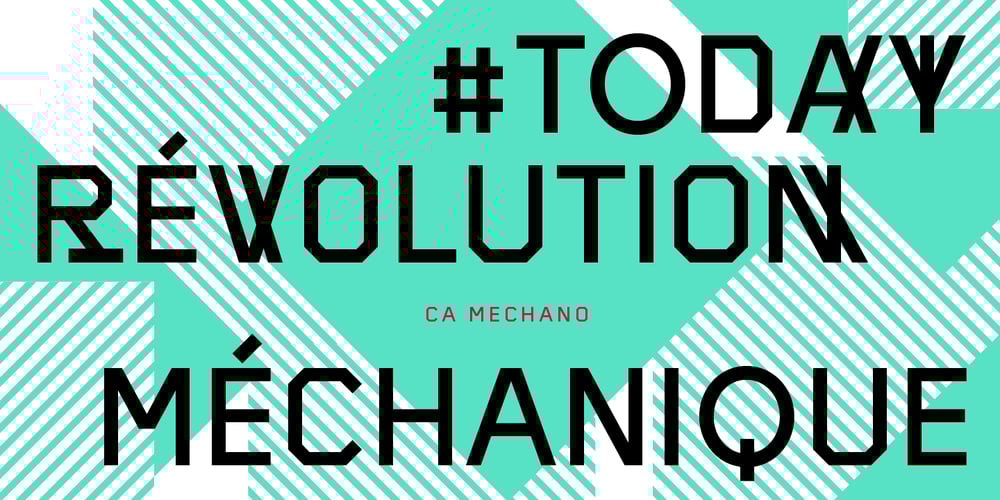
CA Mechano Font Family was designed by Stefan Claudius and published by Cape Arcona Type Foundry. CA Mechano contains 3 styles and family package options. CA Mechano is quite what the name suggests – A mechanical typeface. Pretty straight forward and all-caps as long as you don’t activate the stylistic set “disorder”. You will see what happens then: a lot of fun for the typographic eye. A more consumable distraction is offered by the other stylistic set. You will discover peacefully rounded letters in the neighborhood of strictly mechanically constructed glyphs.